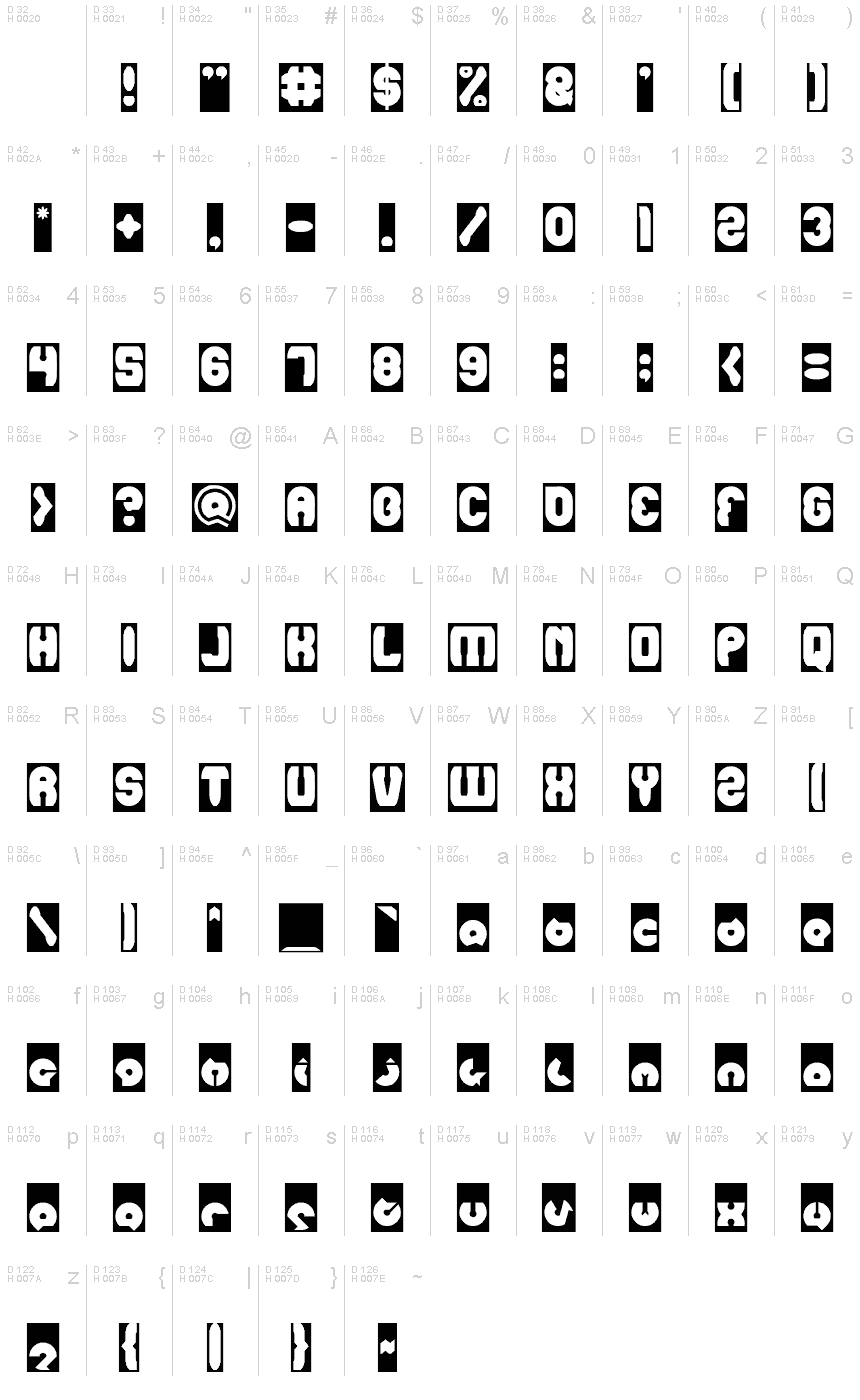
mohr-Inverse
Mohr Inverse, a striking display typeface designed by Weknow, captivates with its bold, techno-inspired style and expanded proportions. This negative-style font exudes a sense of contemporary edge and industrial flair, making it a standout choice for branding, packaging, and visual identities that demand a strong, memorable presence. The juxtaposition of the clean, geometric letterforms and the expanded character widths creates a visually arresting and impactful typographic statement.
Mohr Inverse's versatility extends to a wide range of applications, from eye-catching headlines and attention-grabbing logos to impactful editorial layouts and dynamic digital interfaces. Its bold, expanded forms lend themselves particularly well to bold, attention-grabbing applications, seamlessly bridging the gap between form and function to deliver a powerful, distinctive typographic experience.